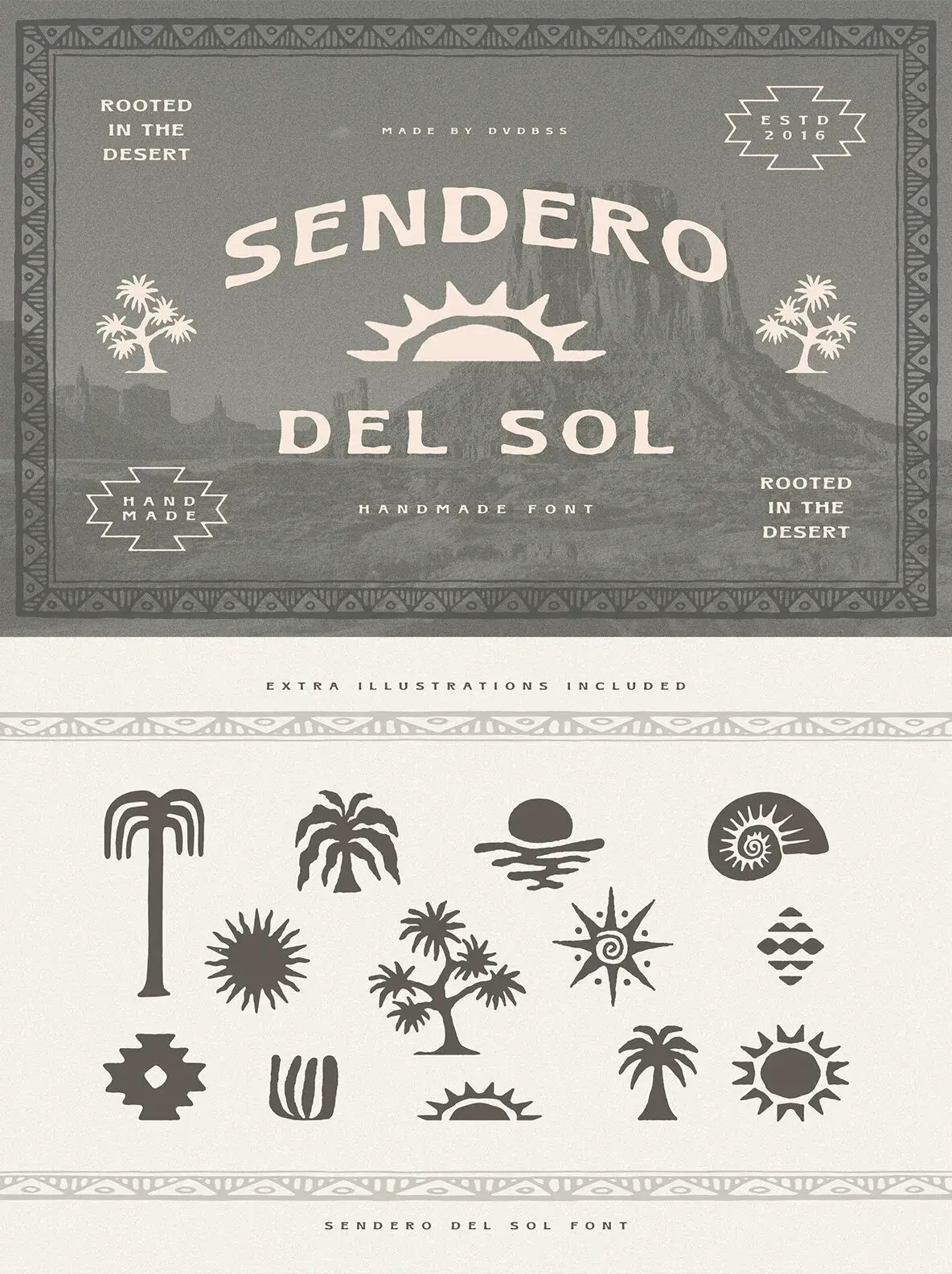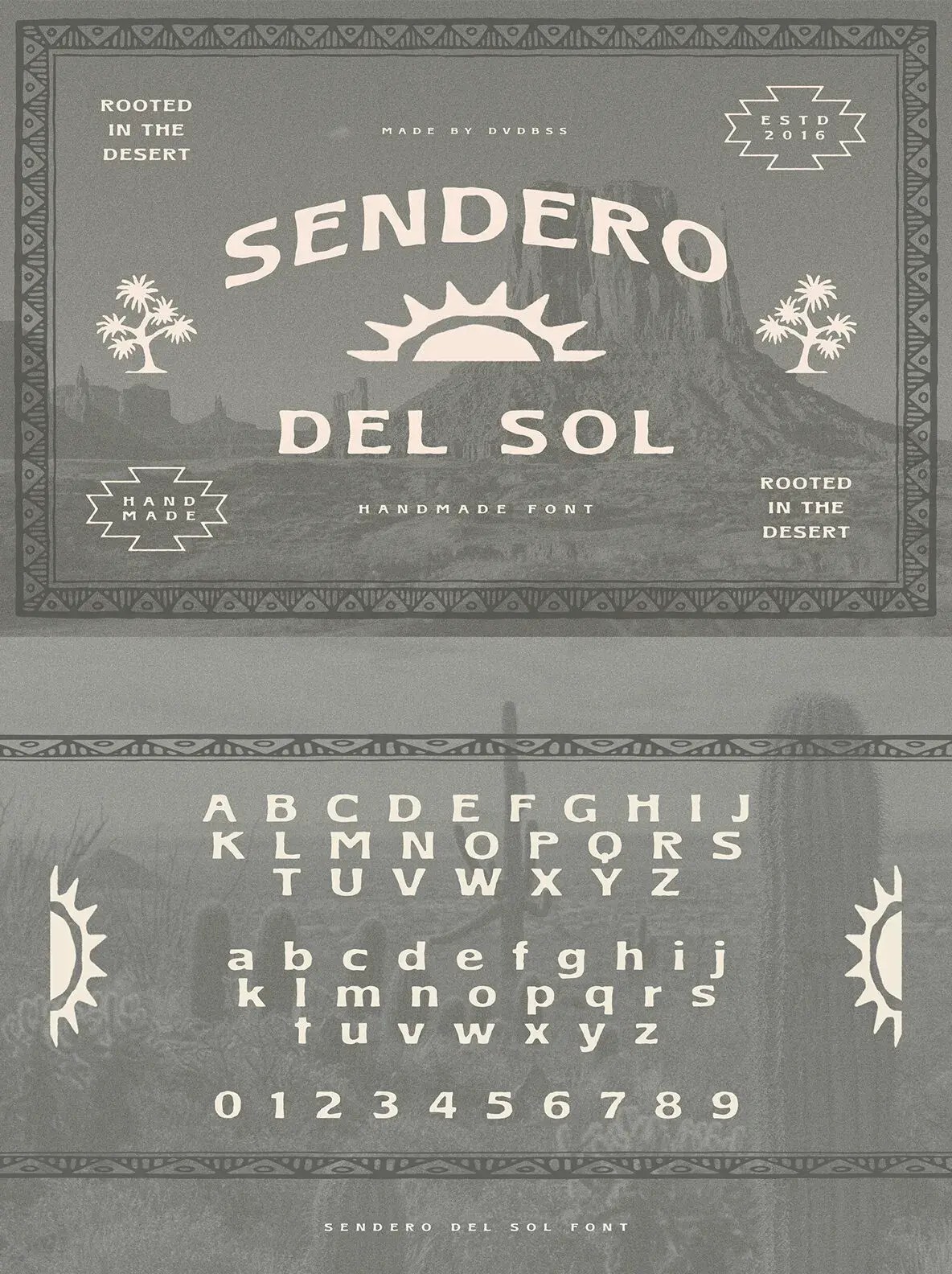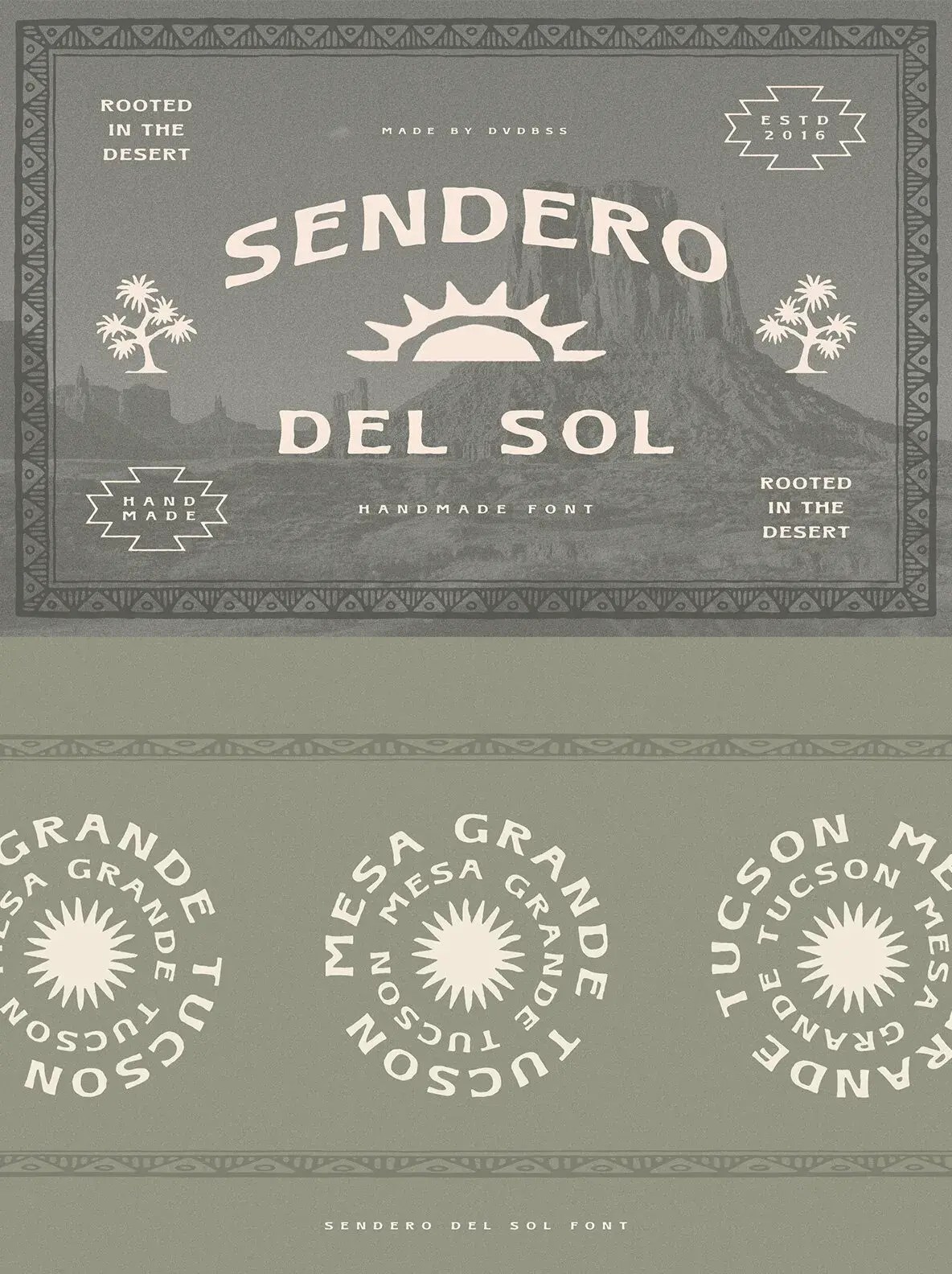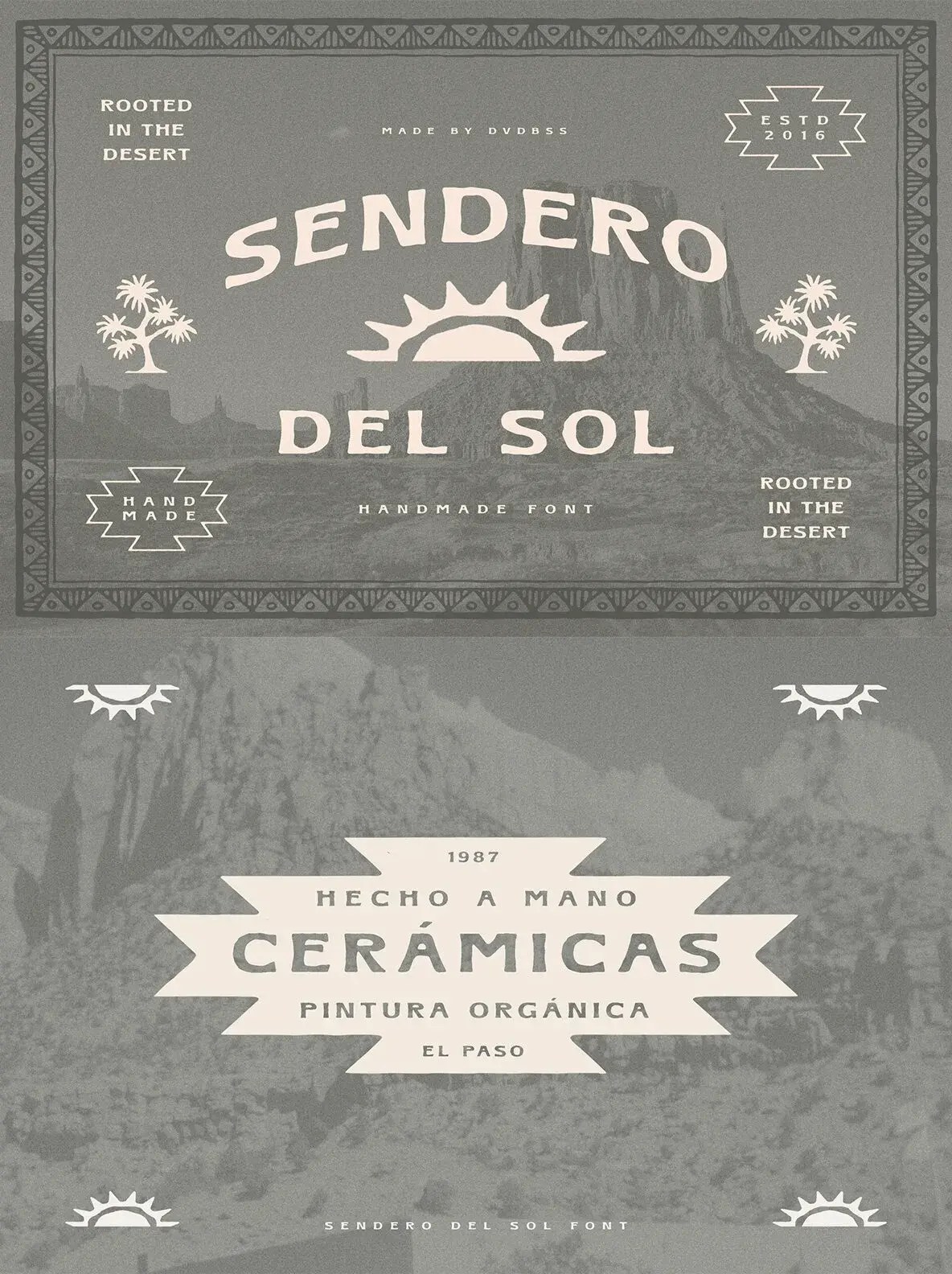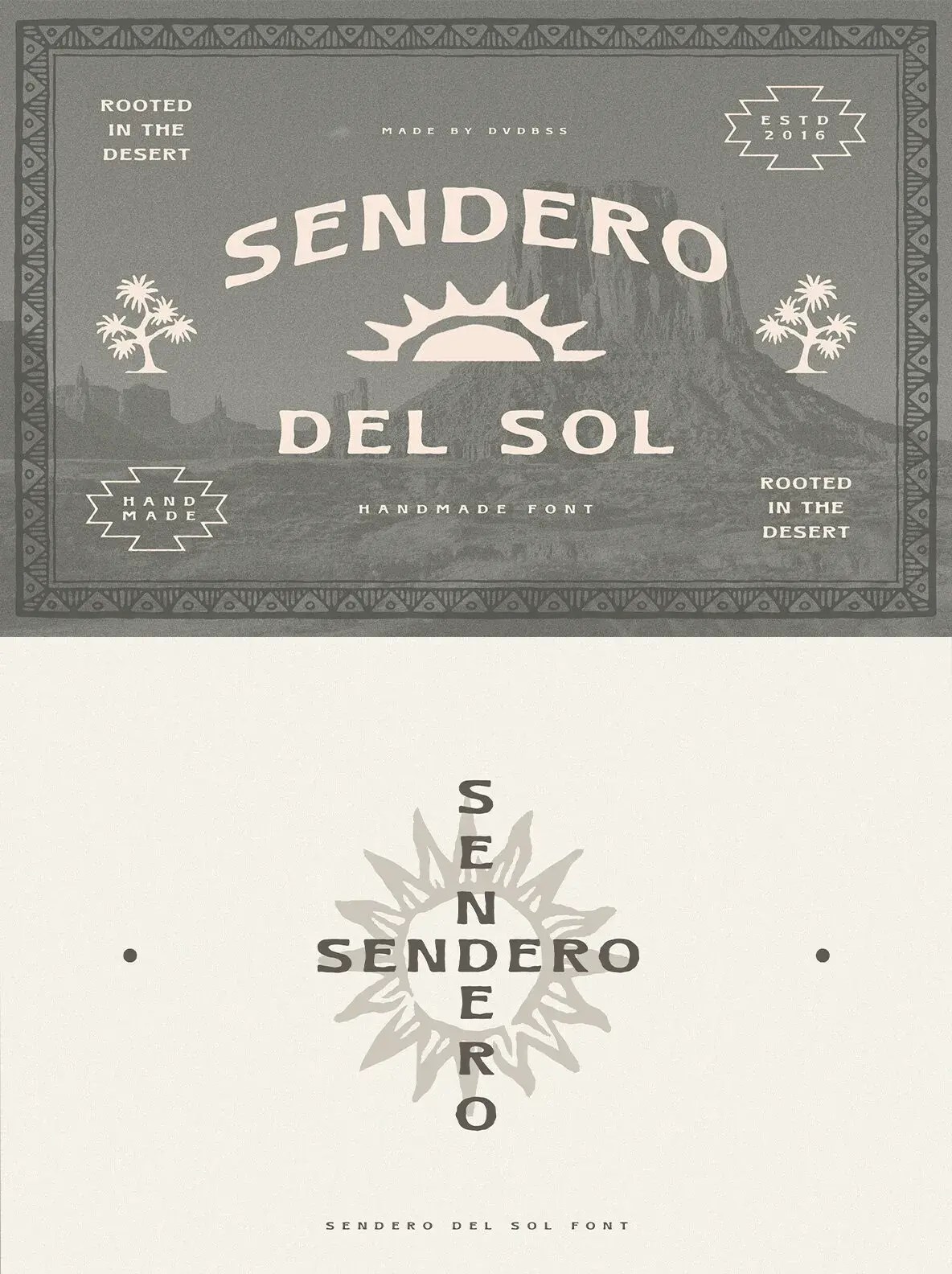
Sendero del Sol Font
Explore ‘Sendero del Sol’—a unique typeface capturing Mexico’s vibrancy &
Southwest charm. Hand-drawn illustrations included. SKU T24738